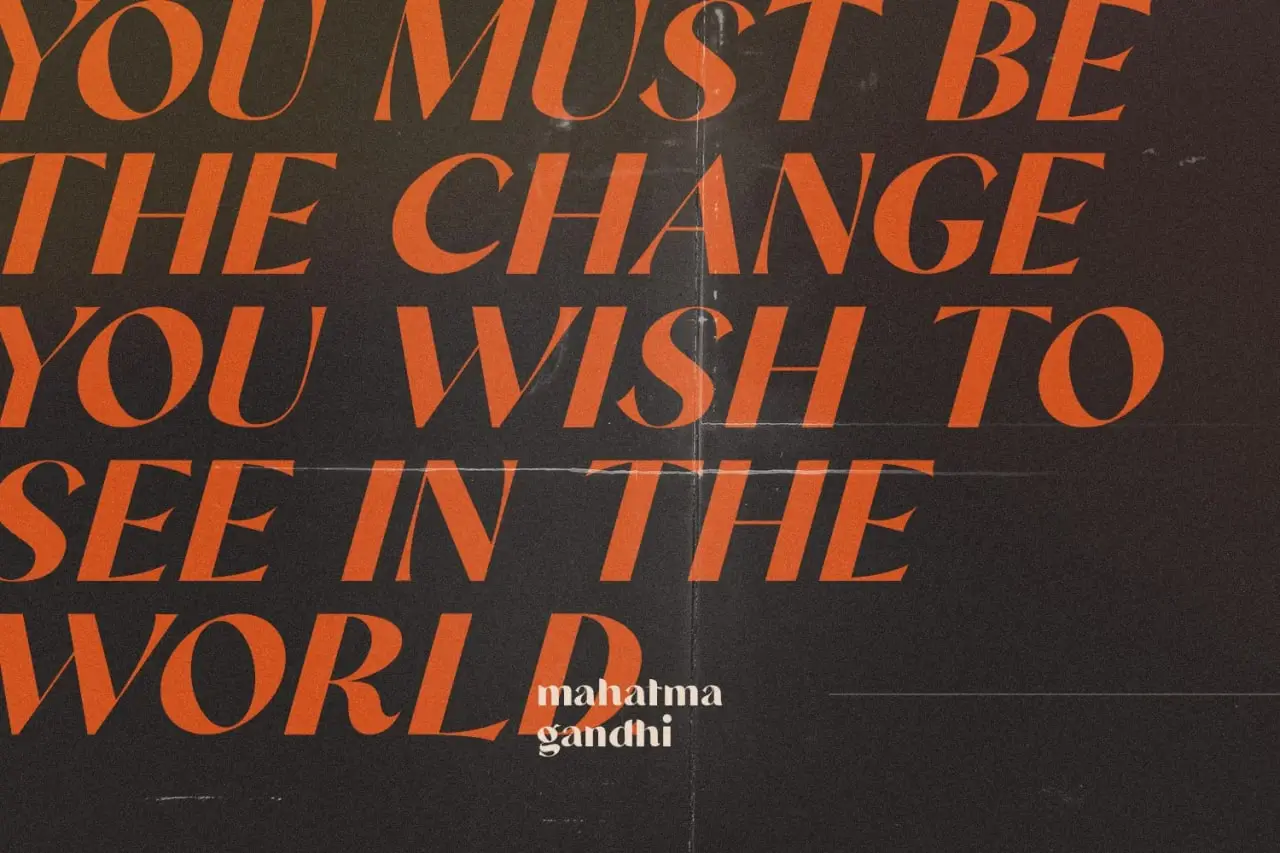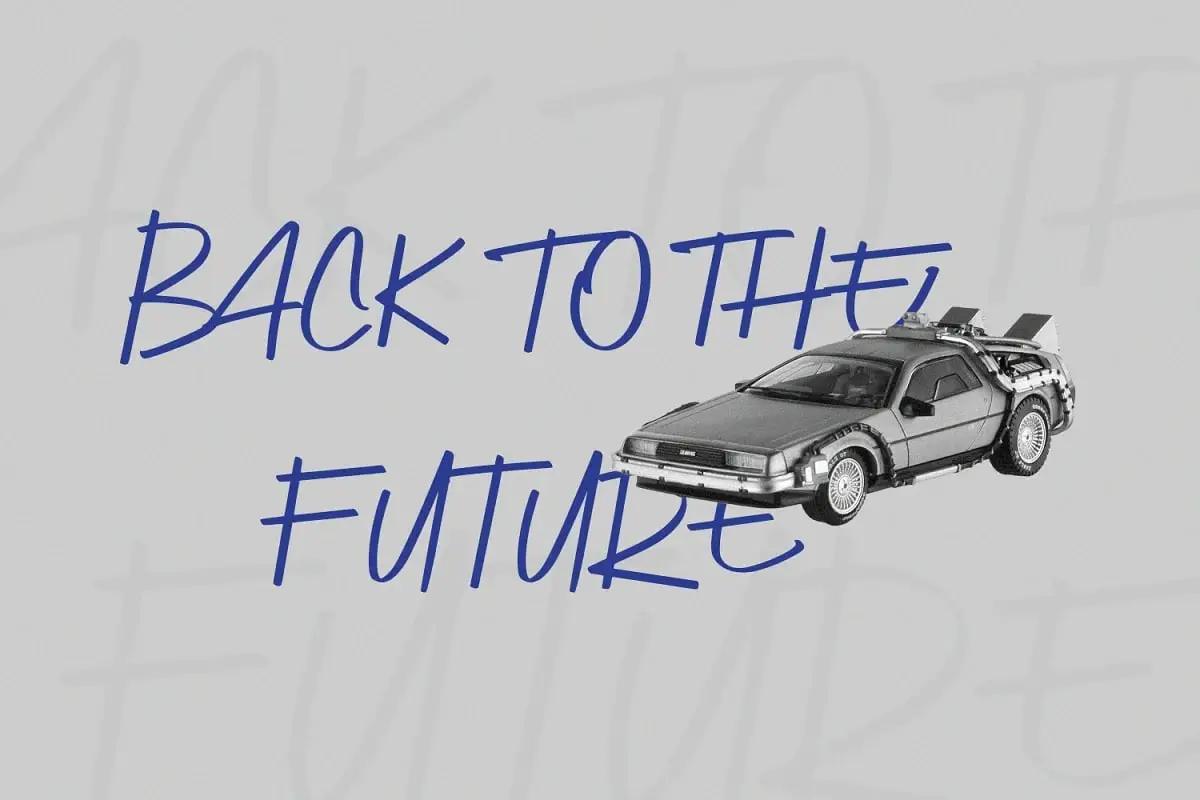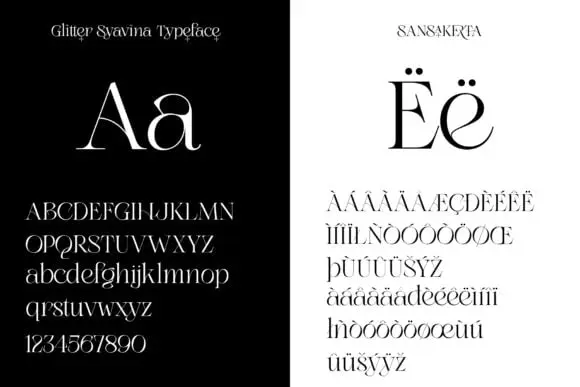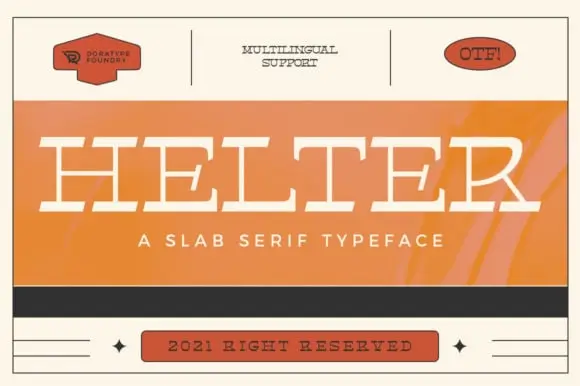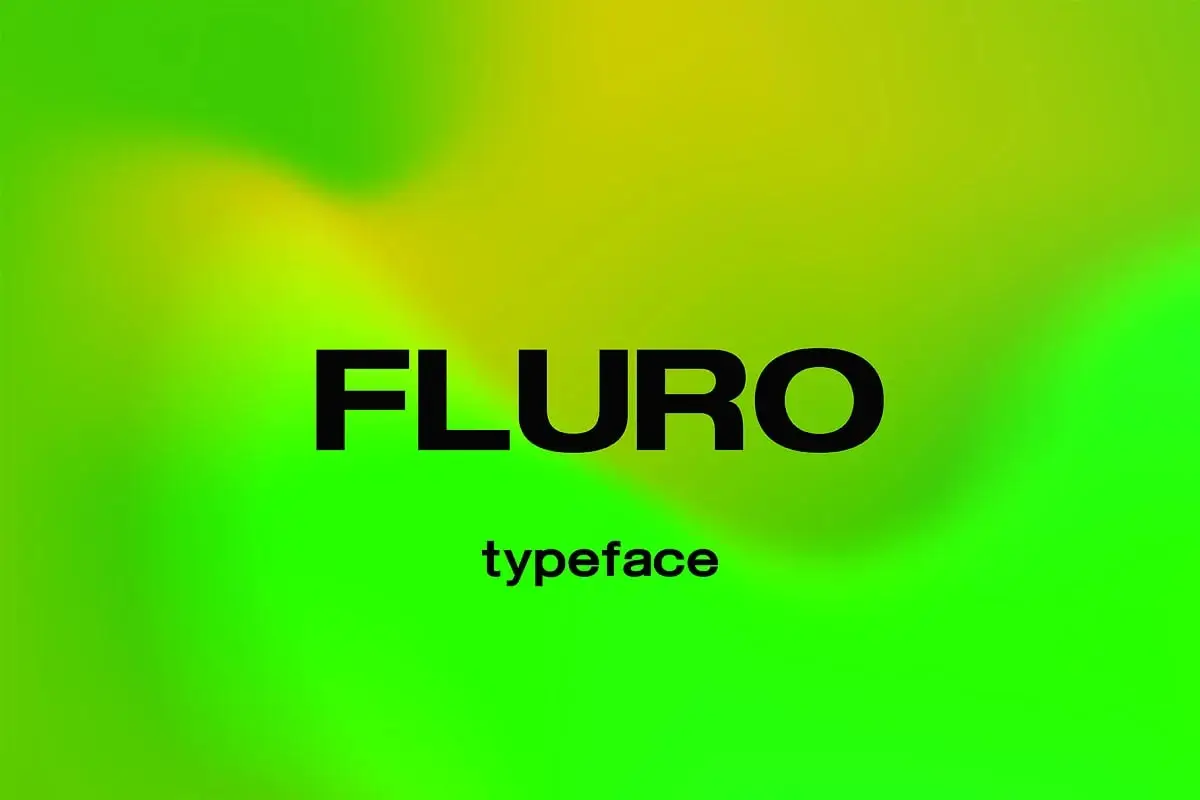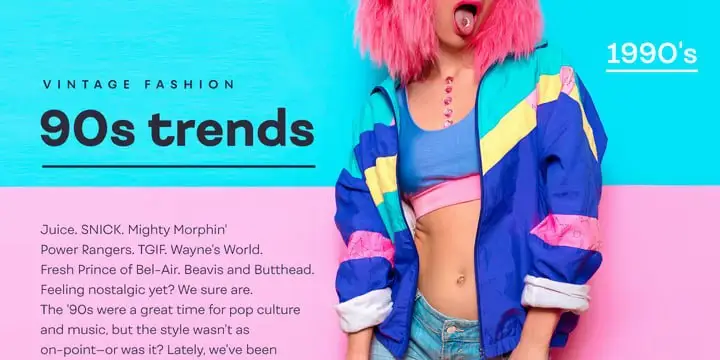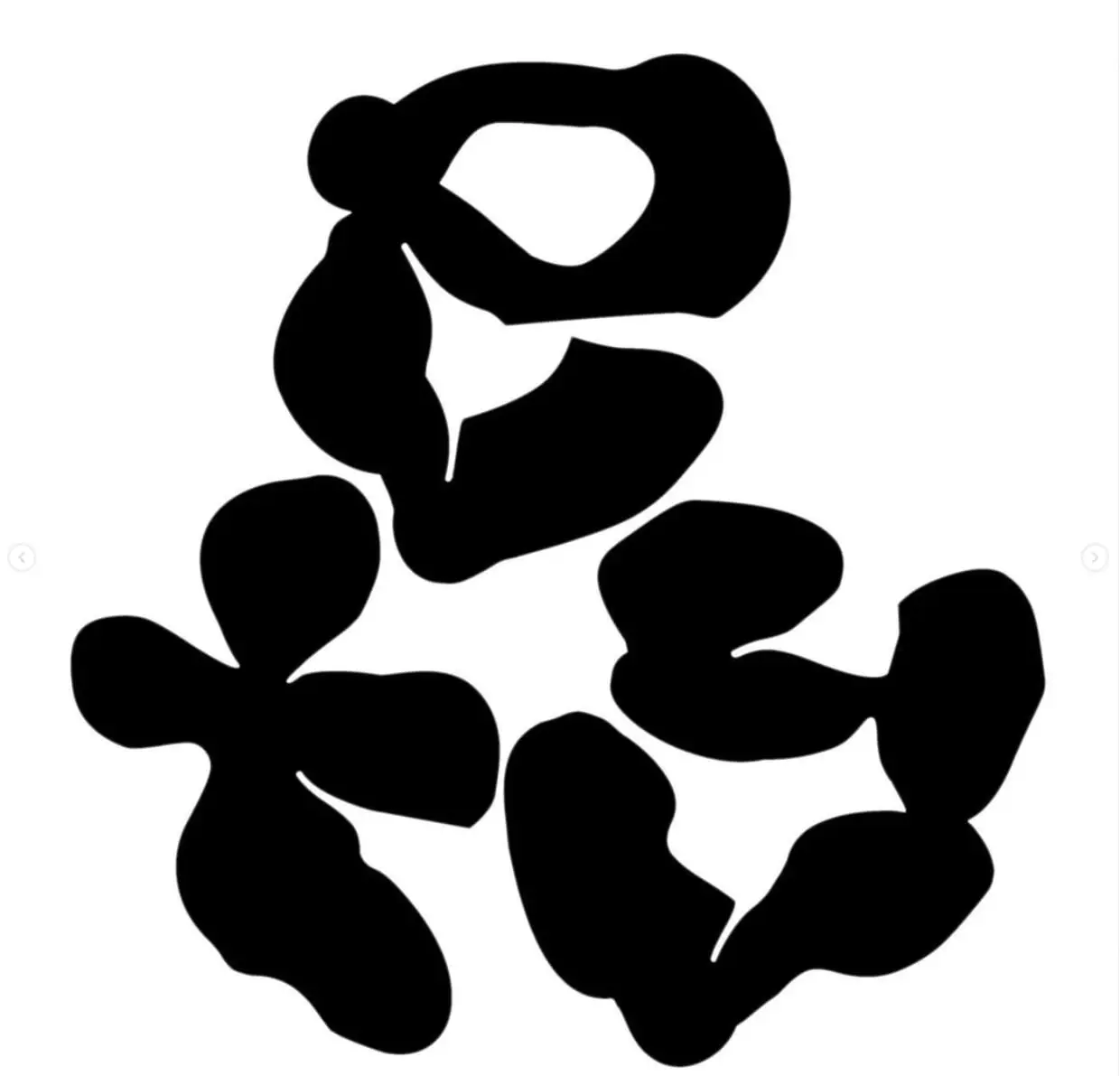
Welcome back, creative fam! 🎨✨ We’re diving headfirst into the Brushspack Collection Part 95—and let me tell you, this batch is absolutely stacked with typography gold and unique design assets. Whether you’re branding a new startup, crafting social media magic, or just hoarding fonts like me, this collection has something to get your heart racing. 🚀
From elegant scripts to bold sans-serifs and versatile design packs, I’ve rounded up 20 must-have goodies that will level up your workflow and inspire your next masterpiece. Ready to scroll, drool, and download? Let’s go! 🤩
Why Use These Fresh Resources?
Great design starts with the right tools. These fonts and assets aren’t just pretty faces—they’re built to save you time, spark creativity, and give your projects a polished, professional edge. Whether you’re working on logos, websites, or print materials, each pick in this list offers versatility, high resolution, and that “wow” factor that clients love. 💥
Top 20 Design Picks from Part 95
Fraiche Font By Adam Fathony
Looking for a script font that screams elegance? ✨ Fraiche is your new best friend. With smooth, flowing curves and multiple weights, it’s perfect for wedding invites, luxury branding, or any project that needs a touch of class. 🖋️
Future History-2 In 1 Font
Two fonts in one? Yes, please! 🙌 Future History blends modern and classic vibes with both regular and italic styles. Available in OTF and TTF—clean lines, endless possibilities. A total steal for any designer’s toolkit. 🔥
Galpike Sans-Variable Font
Variable fonts are the future, and Galpike Sans is leading the charge. 🚀 Customize weight and style on the fly for total typographic flexibility. Clean, modern, and super legible—ideal for both digital and print. 🌟
Fluro Typeface
Bold, geometric, and oh-so-modern—Fluro is a total head-turner. 🔵 Perfect for logos and branding, it comes in Regular, Bold, and Italic styles. If you want your headlines to pop, this is it. 💥
Gaila
Gaila is a versatile digital asset that blends modern aesthetics with functional design. High-res graphics and customizable elements make it perfect for both personal and pro projects. Versatility at its finest! 🌈
Fibra
Fibra brings a unique texture and vibe to your designs. 🧵 High-res assets with a variety of styles—easy to customize and integrate. Great for adding that extra layer of depth to your work. 🔥
Deustchen Font
Elegance meets modernity with Deustchen. This typeface offers clean lines and thoughtful curves, with Light, Regular, Medium, Bold, and Italic styles. A sophisticated choice for branding and logos. 🌟
Fester Font
Fester is a typeface with serious personality! Multiple weights and a stylish, modern aesthetic make it easy to read at any size. Great for web, print, and everything in between. 🎯
Garwen
Garwen is a high-quality design asset pack that instantly elevates branding and marketing materials. With versatile styles and crisp resolution, it’s a must-have for any creative’s library. 🌟
Doratypefoundry-Helter Font
Helter is bold, contemporary, and ridiculously versatile. Multiple weights and stylish letterforms make it perfect for branding, UI, and print. A font that works as hard as you do! 💪
Compote Retro Sans Font
Nostalgia meets clean design! 🕰️ Compote Retro Sans features multiple weights and a timeless vibe that works for branding, web, and UI. Cool vibes only. 😎
Dnartdesignn-Glitther Syavina
Add a little sparkle to your workflow! ✨ Glitther Syavina is a high-res digital asset that’s perfect for social media, web, and print. Versatile and full of creative flair. 🌟
Drumnik By Stopan, Plamen Motev, Stefan Yatanski, Mirela Belcheva
Teamwork makes the dream work! 🤝 Drumnik is a unique digital asset created by a talented crew. High-quality, customizable components that add a distinctive touch to any project. 🔥
Destrod By Tanya Savchenko
Tanya Savchenko brings us Destrod—a stunning collection of unique design elements. High-quality and versatile, it’s perfect for both personal and pro use. Elevate your creative game! 🚀
Clancy Sans Font By Firstype
Clancy Sans is a modern sans-serif dream. With multiple weights, uppercase/lowercase, numerals, and punctuation—it’s the complete package for branding, web, and print. Clean and classic! 🖋️
Edirne
Edirne is a creative resource packed with high-res, editable vector formats. Compatible with popular design software—it’s a flexible addition to any toolkit. Perfect for web or print. ✅
Circle Fantasy-By © Andrijana Miladinovic
Intricate circular designs meet creative magic! 🌀 Circle Fantasy is perfect for branding and digital art. High-quality assets that bring a unique, captivating flair to your projects. 🔮
Cumbre Font By Julia Martinez Diana
Elegant, clean, and sophisticated—Cumbre is a gorgeous typeface with multiple weights and multilingual support. Ideal for editorial design, logos, and elegant branding. ✨